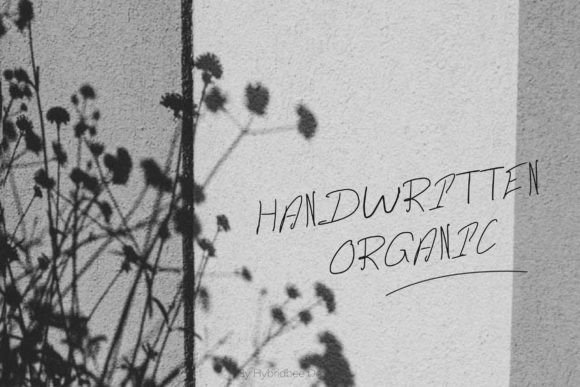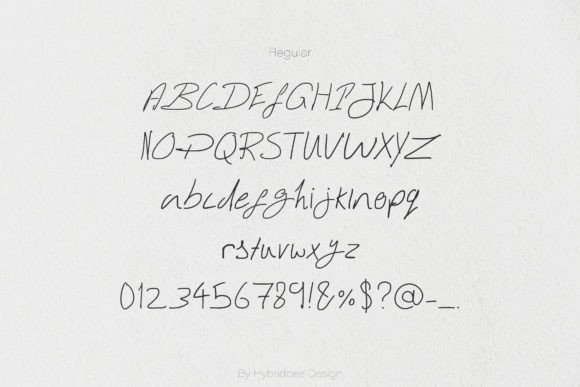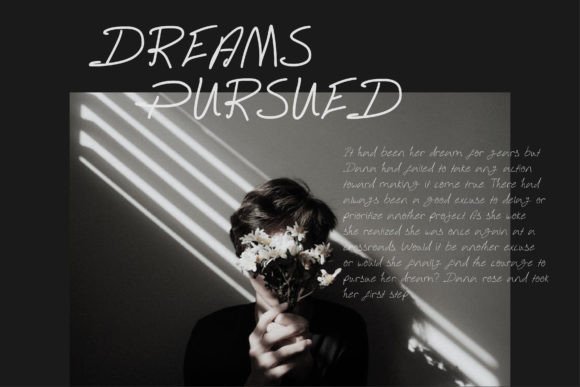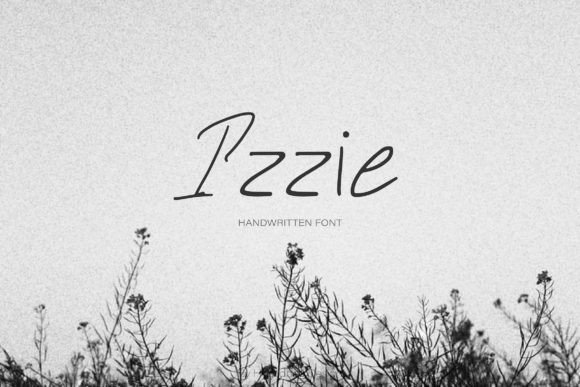
Introduction to Izzie Font
Izzie is a handwritten font that is organic and unique in its imperfection.
It is quite minimalist and quirky and can be used for a variety of design ideas that require a handmade and authentic touch Uses can include headlines, branding, packaging, logo, web design, etc.